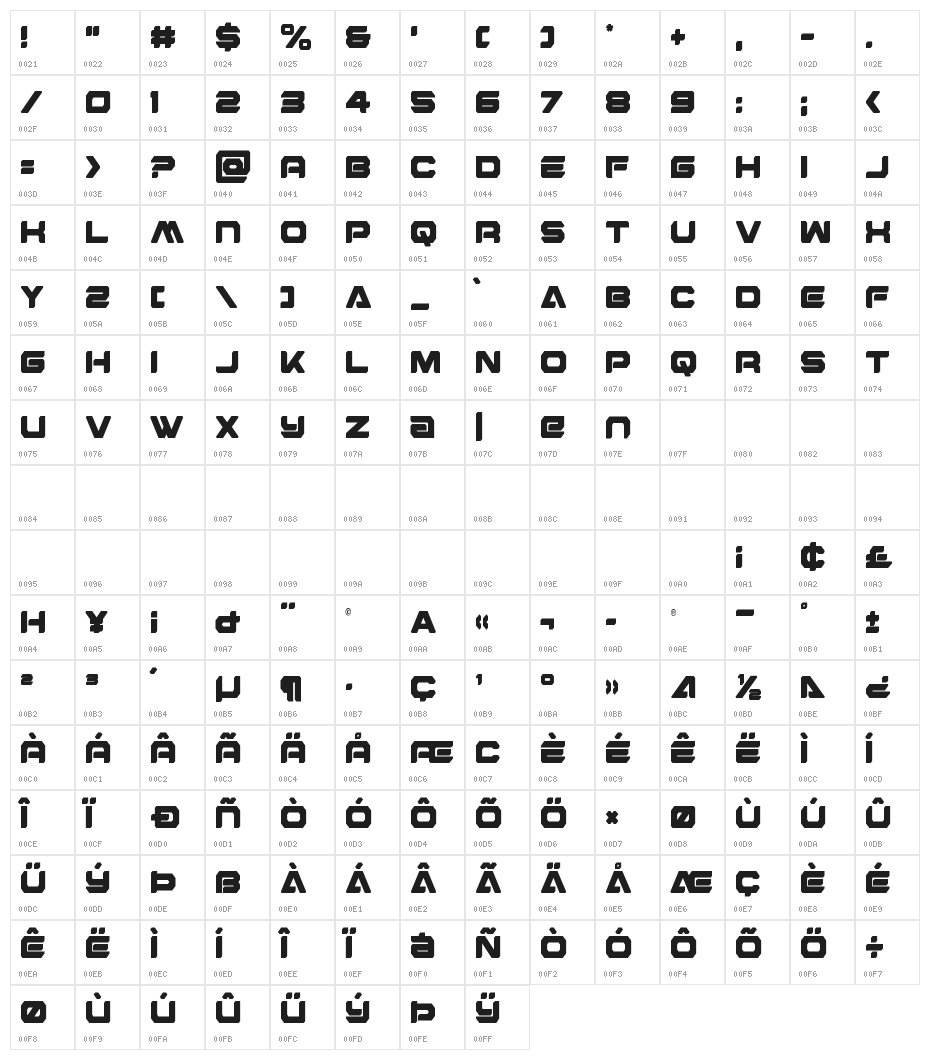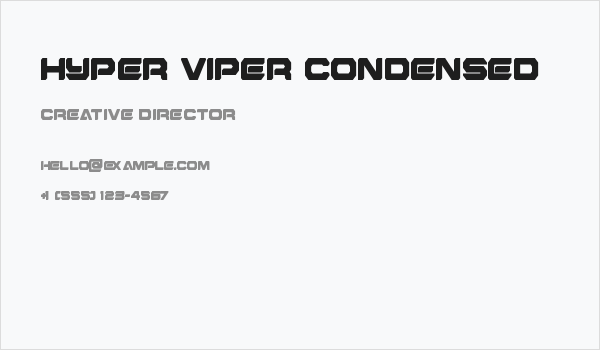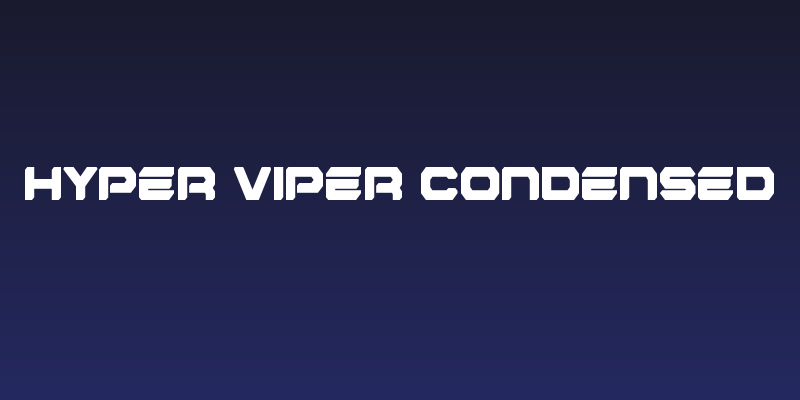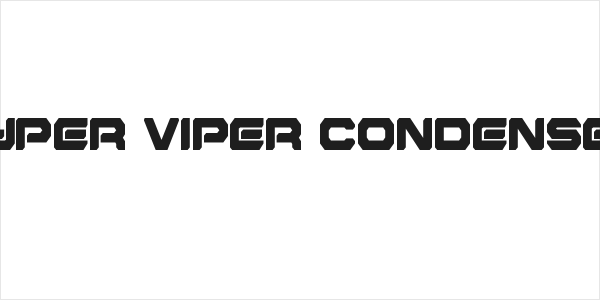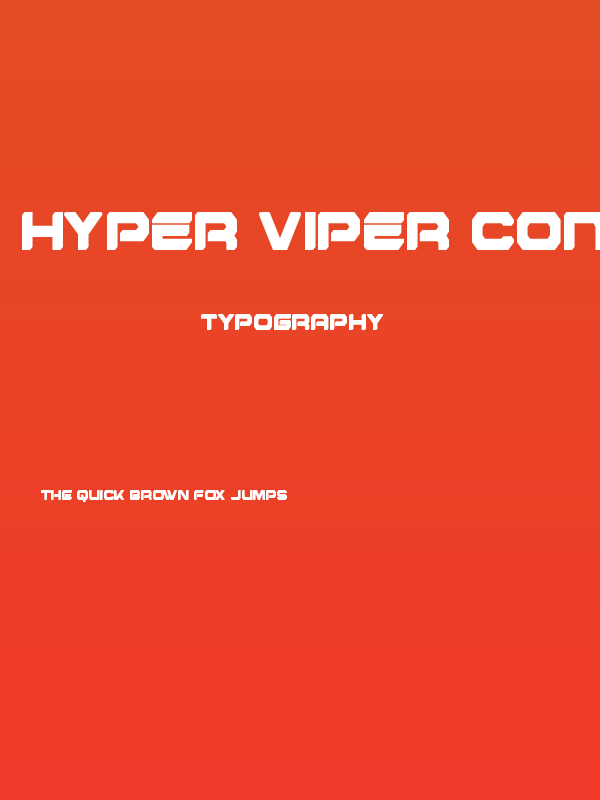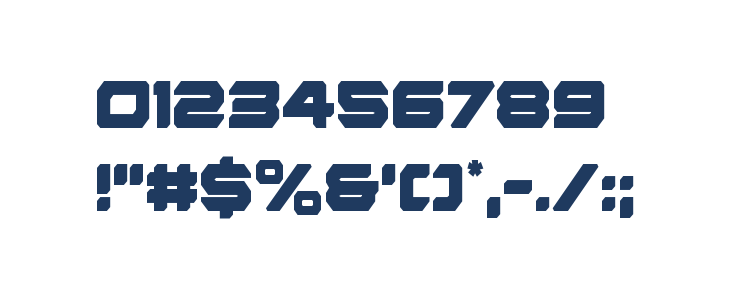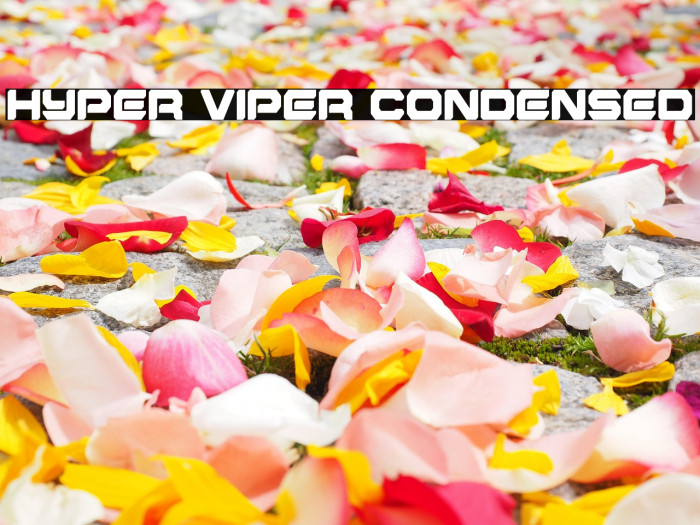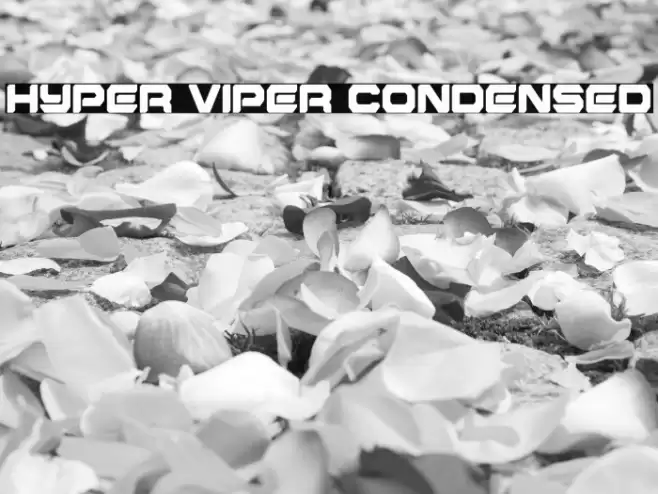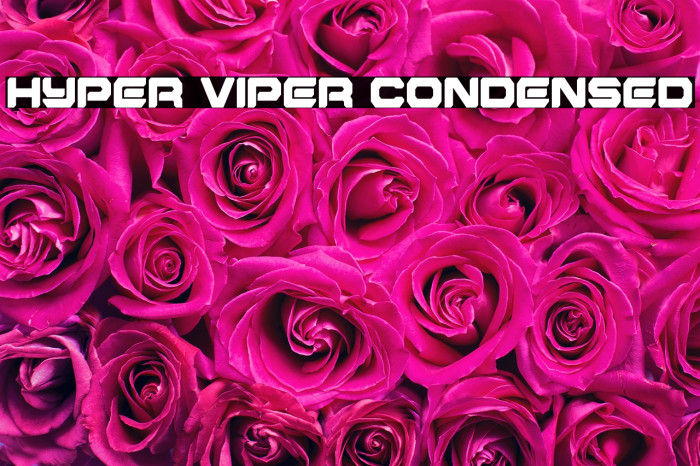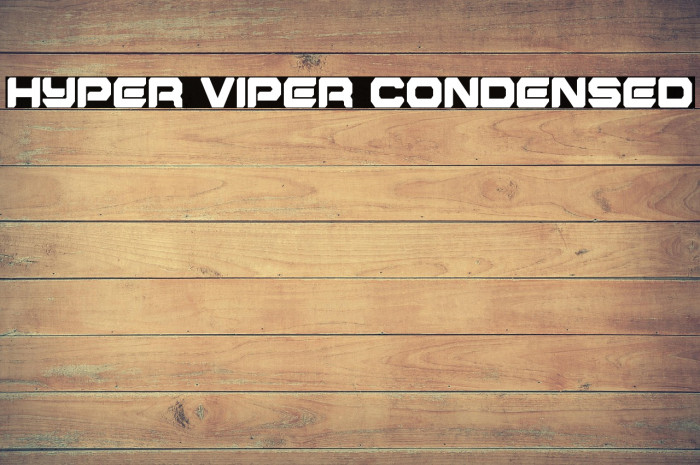
Hyper Viper Condensed Font
This font exhibits a bold and futuristic design, characterized by its geometric and angular shapes. The letters are condensed, providing a compact and impactful appearance. The style is consistent across uppercase, lowercase, numbers, and special characters, maintaining a uniform aesthetic. The sharp edges and solid structure give it a modern and tech-inspired feel, making it suitable for attention-grabbing designs. The font's distinctiveness lies in its ability to convey strength and innovation, ideal for projects that require a contemporary and assertive look.
| Proposed Projects | Ideal for technology branding, video game titles, sci-fi movie posters, and modern advertising campaigns. |